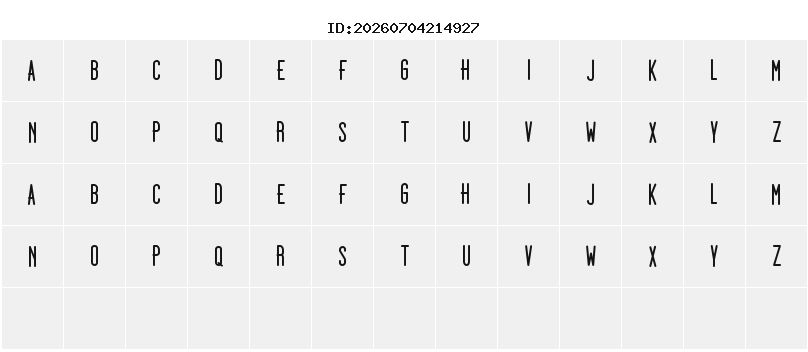
Dooodleista Preview
• Font Name: Dooodleista
• Full Font Name: Dooodleista Bold
• Designer: Filiz Sahin
About Dooodleista.ttf
Dooodleista.ttf is a modern, elegant sans-serif font designed for ultimate readability and visual harmony. Perfect for branding, headlines, web design, and print materials.